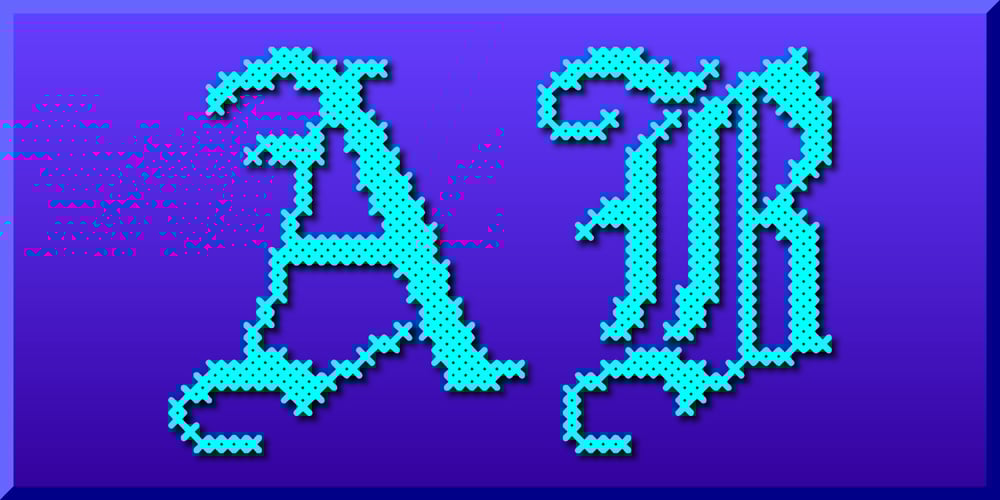
Cross Stitch Gothic Font Family was designed by Gerald Gallo and published by Gerald Gallo. Cross Stitch Gothic contains 1 styles and family package options. Cross Stitch Gothic is not intended for text use. It was designed for use as fancy monograms or initials. Cross Stitch Gothic is based on upper case characters 28 stitches tall and contains the characters A-Z. Most characters extend above the capital line or below the base line.